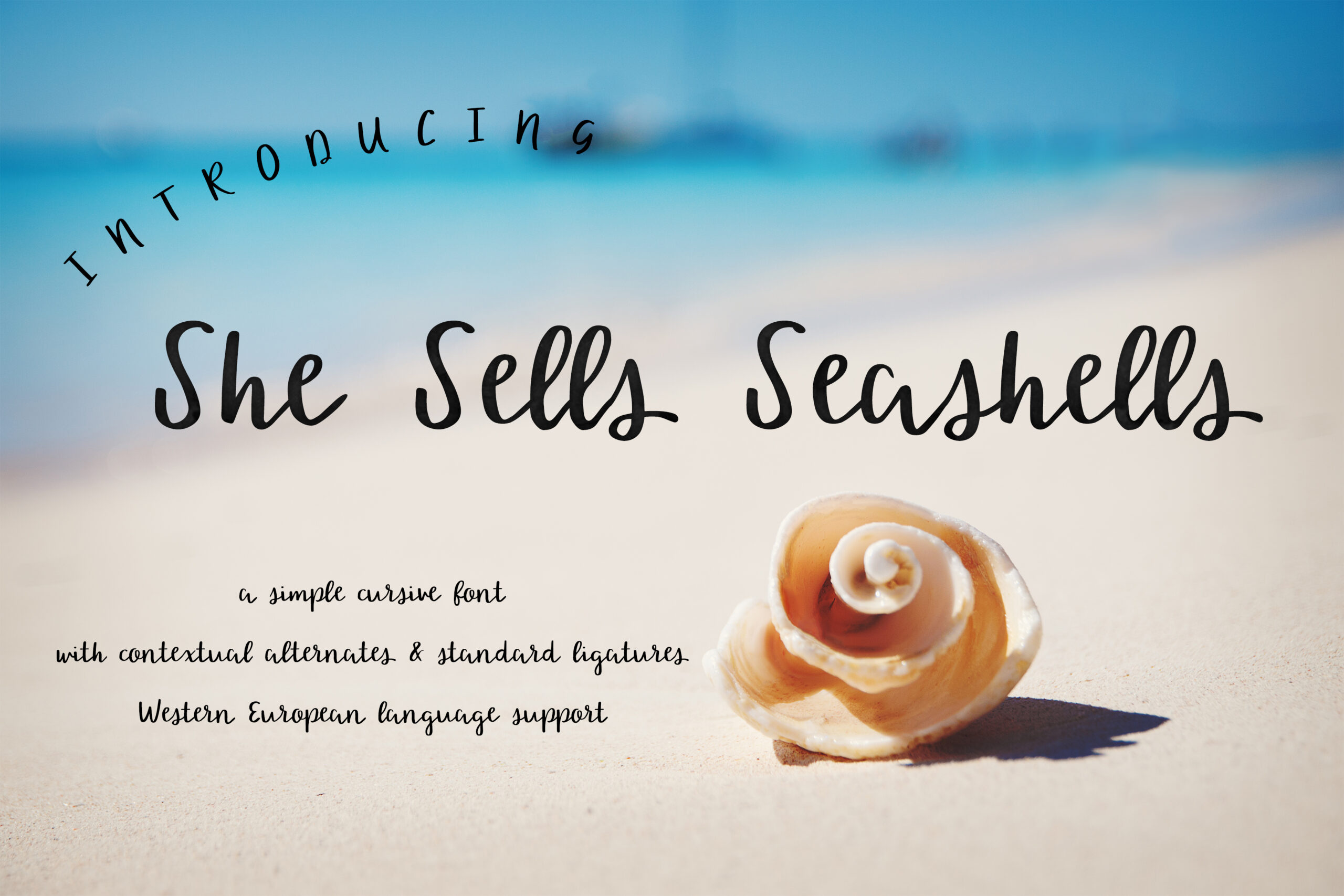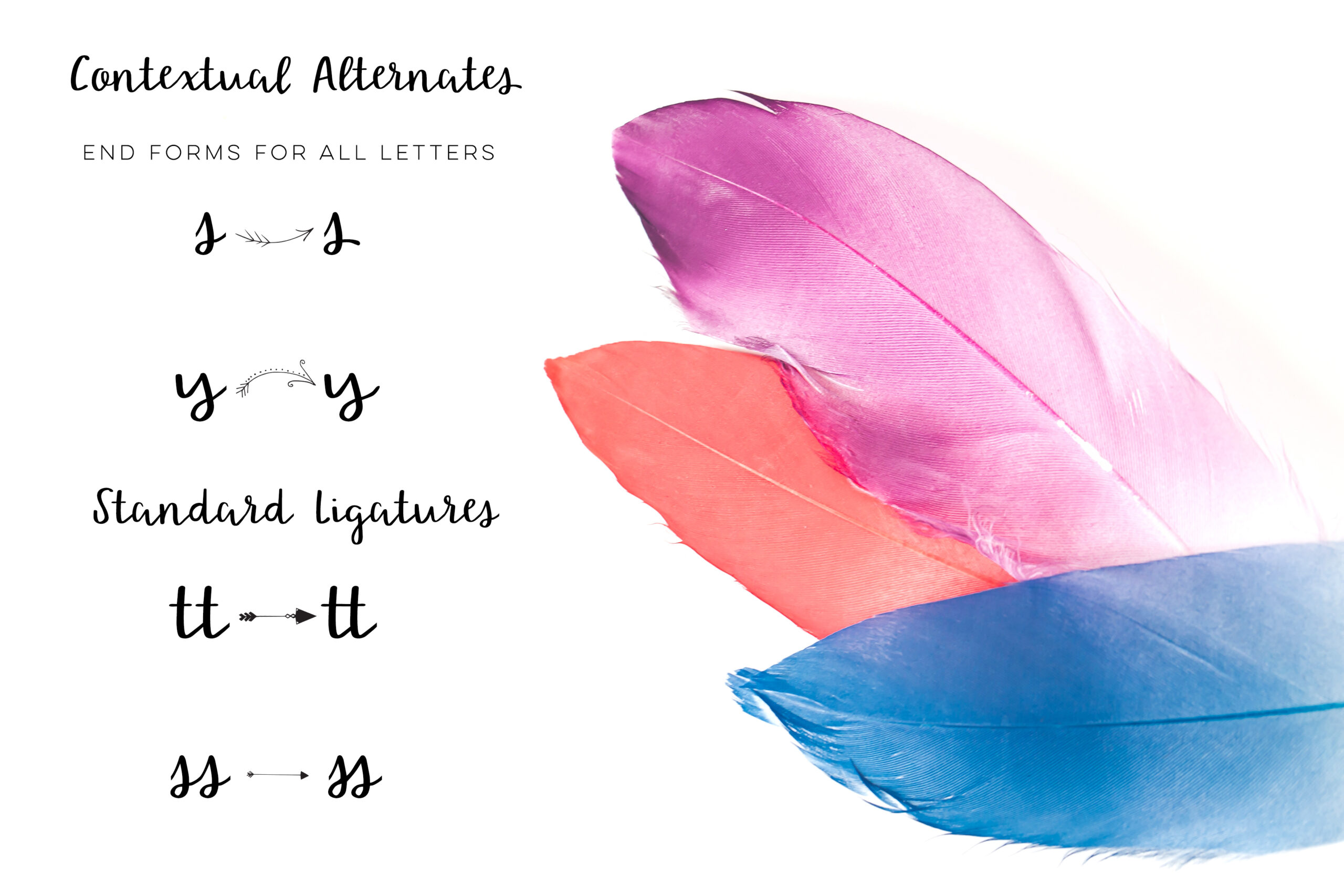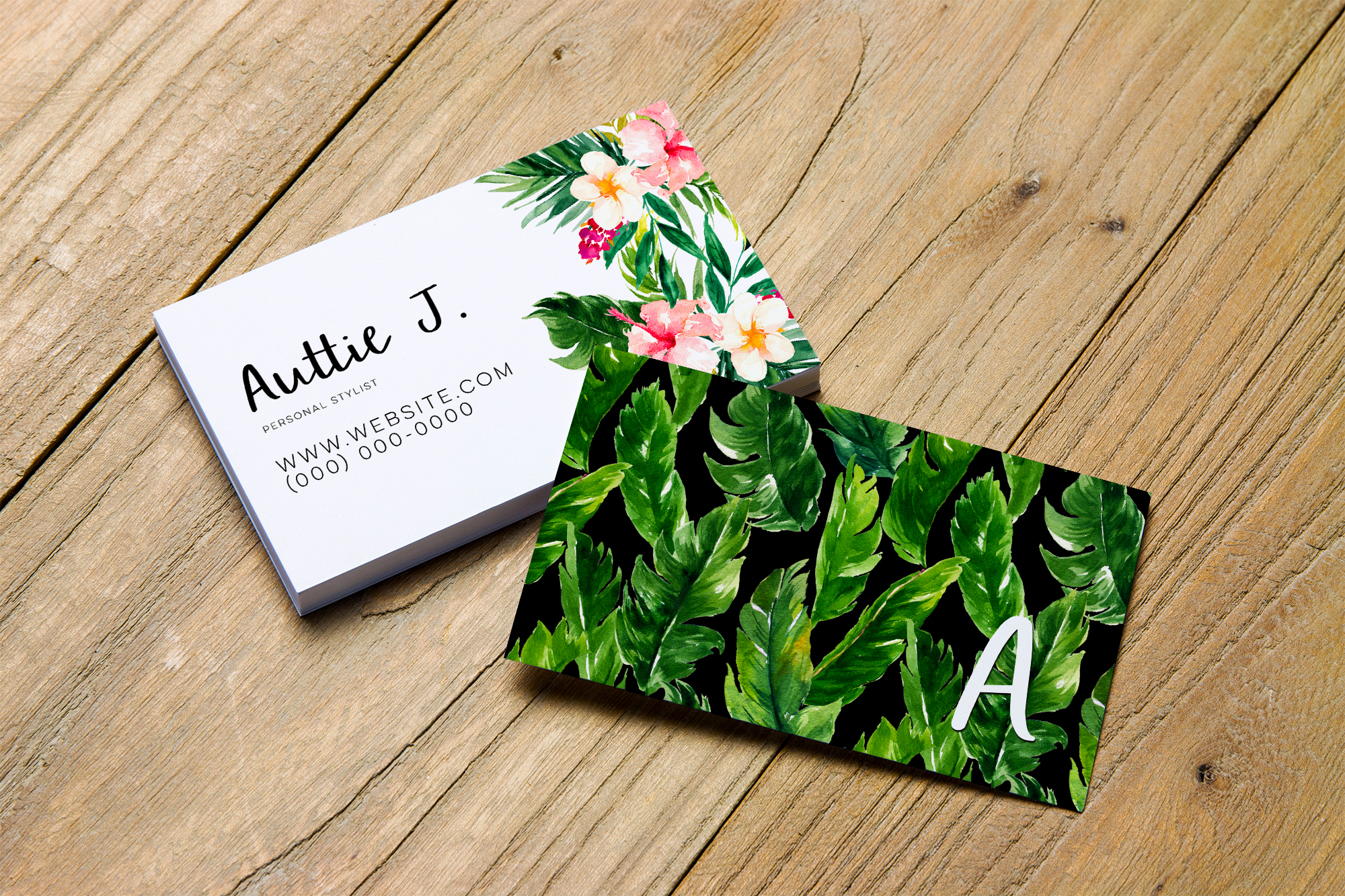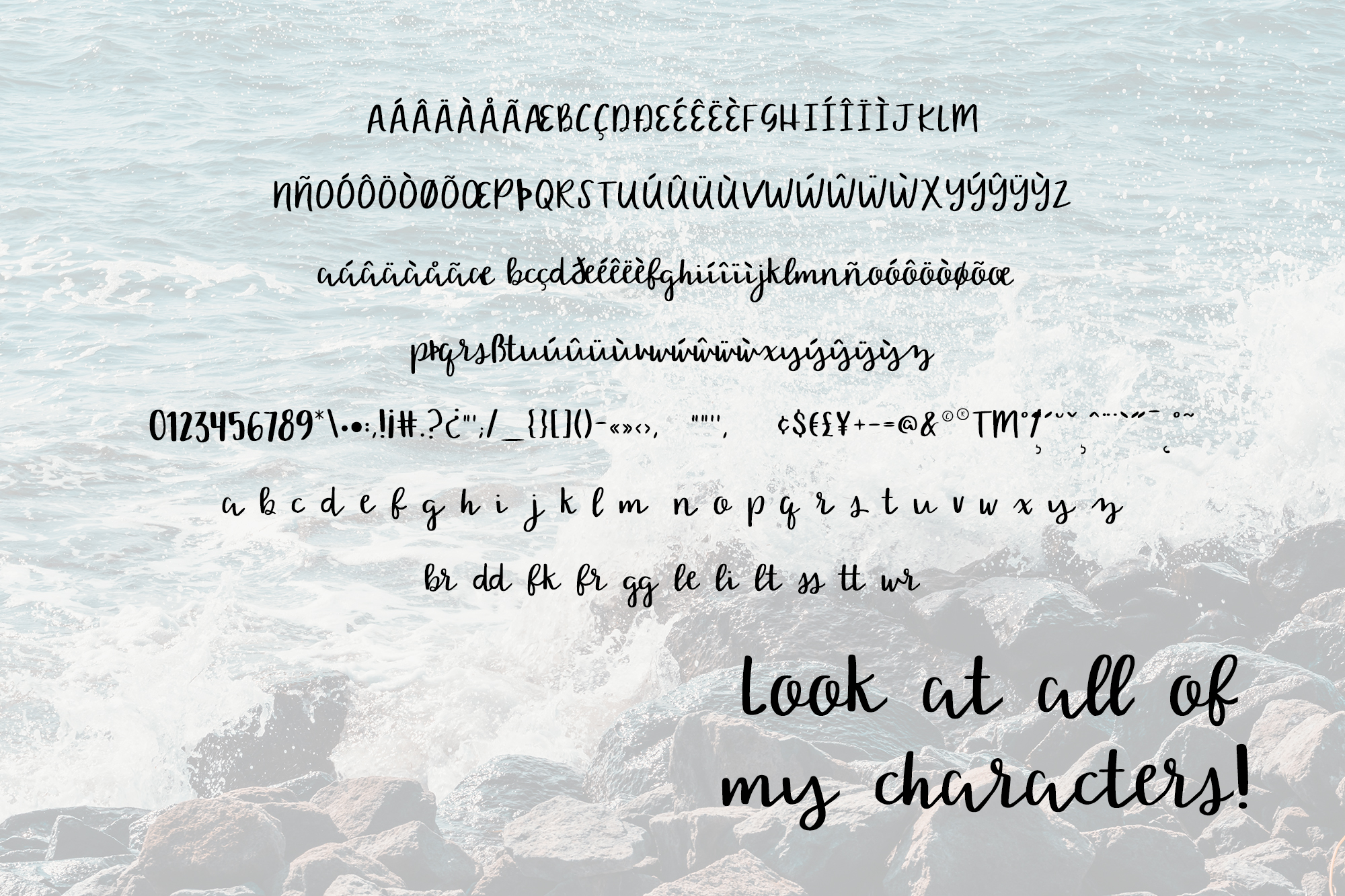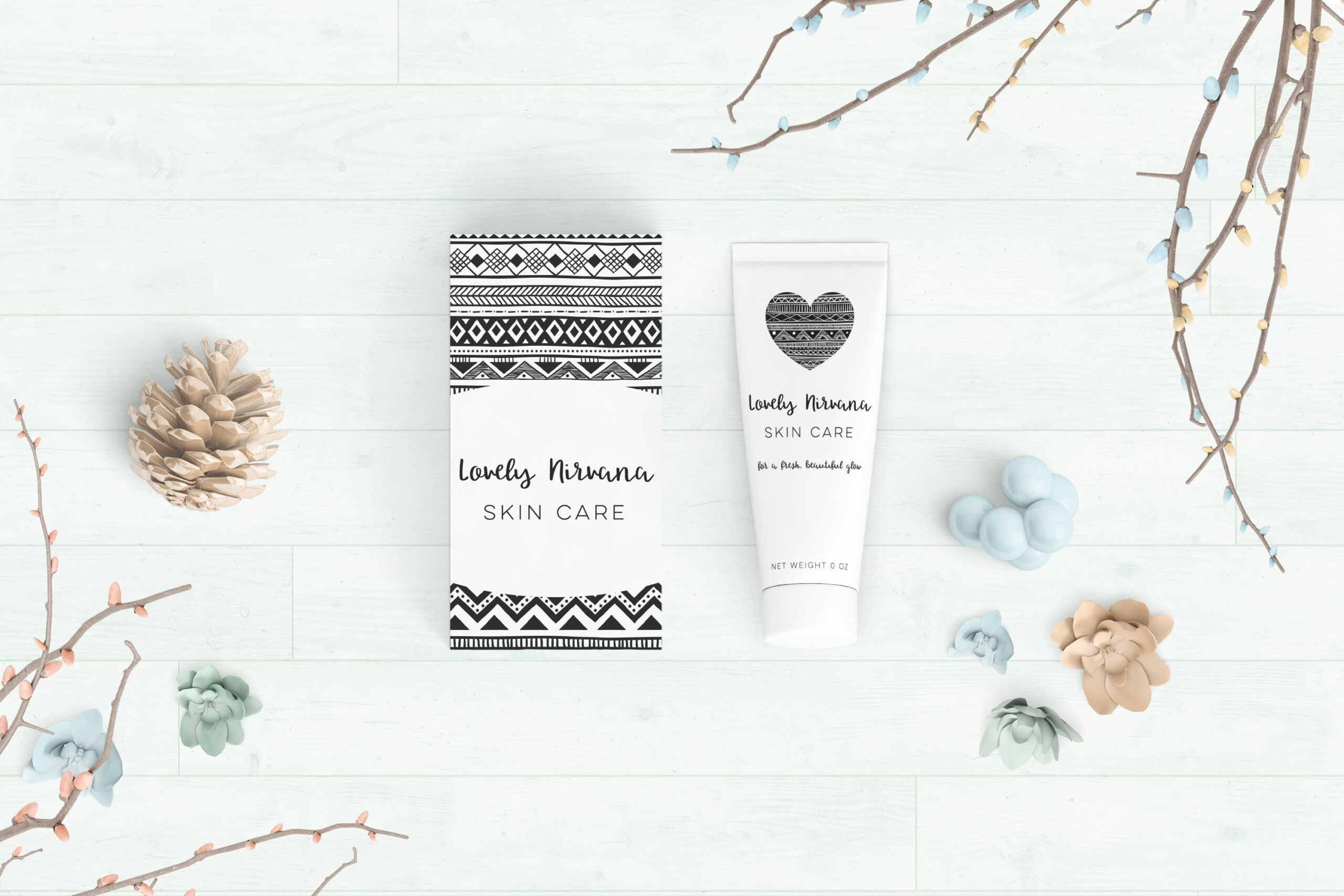
She Sells Seashells Font
About She Sells Seashells Font
Weekends, summers, & every moment in between, I combed the beach in my childhood hometown for the perfect, intact shells. She Sells Seashells is a simple, clean, hand-lettered font — perfect for feminine branding, providing an easy to read “signature” for clients, & more!
Each lowercase character has an alternate end form. Seashells also includes some standard ligatures, & features Western European language support.